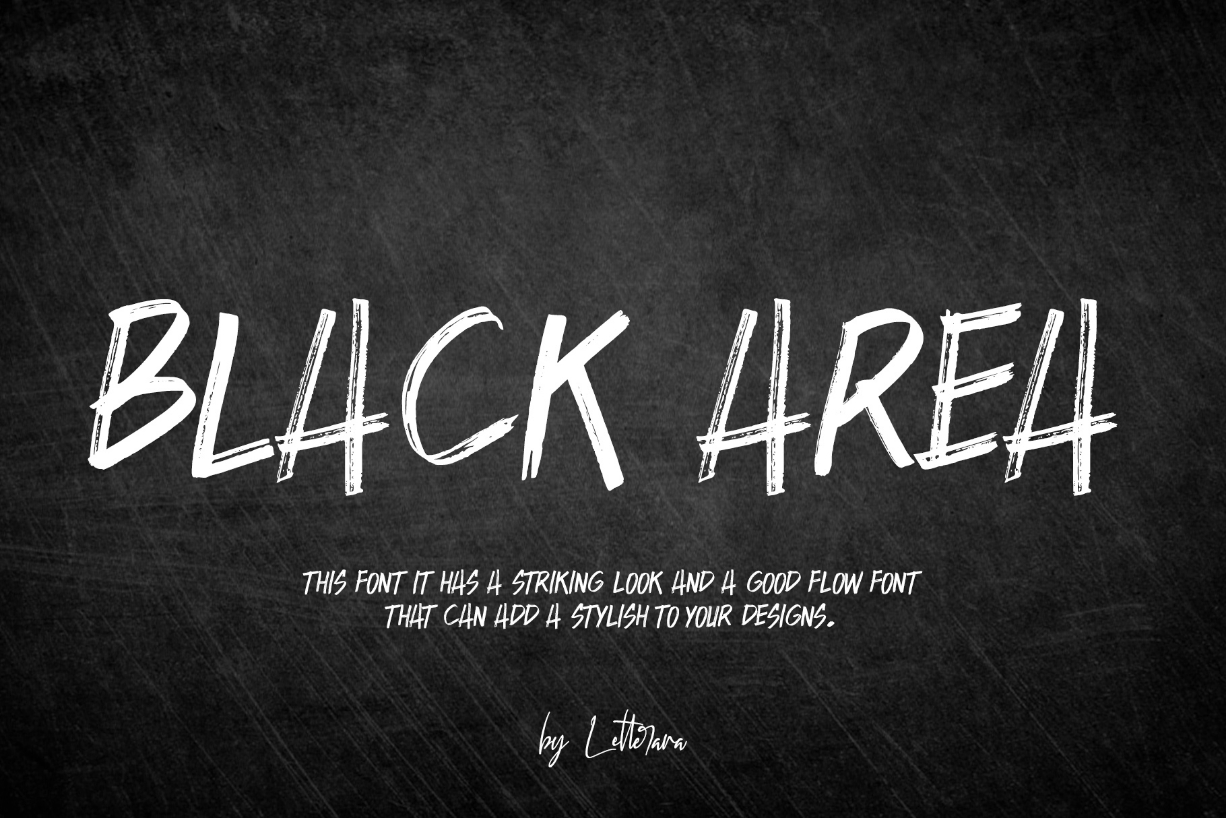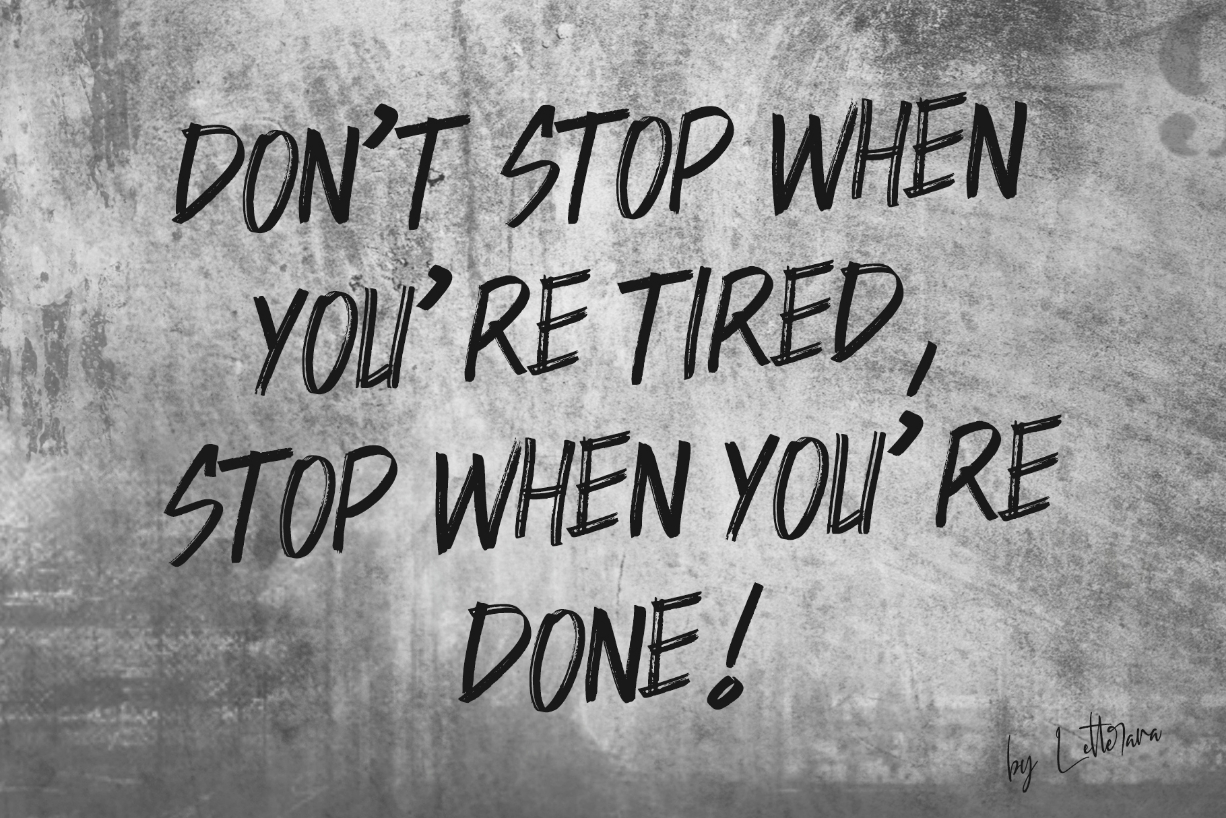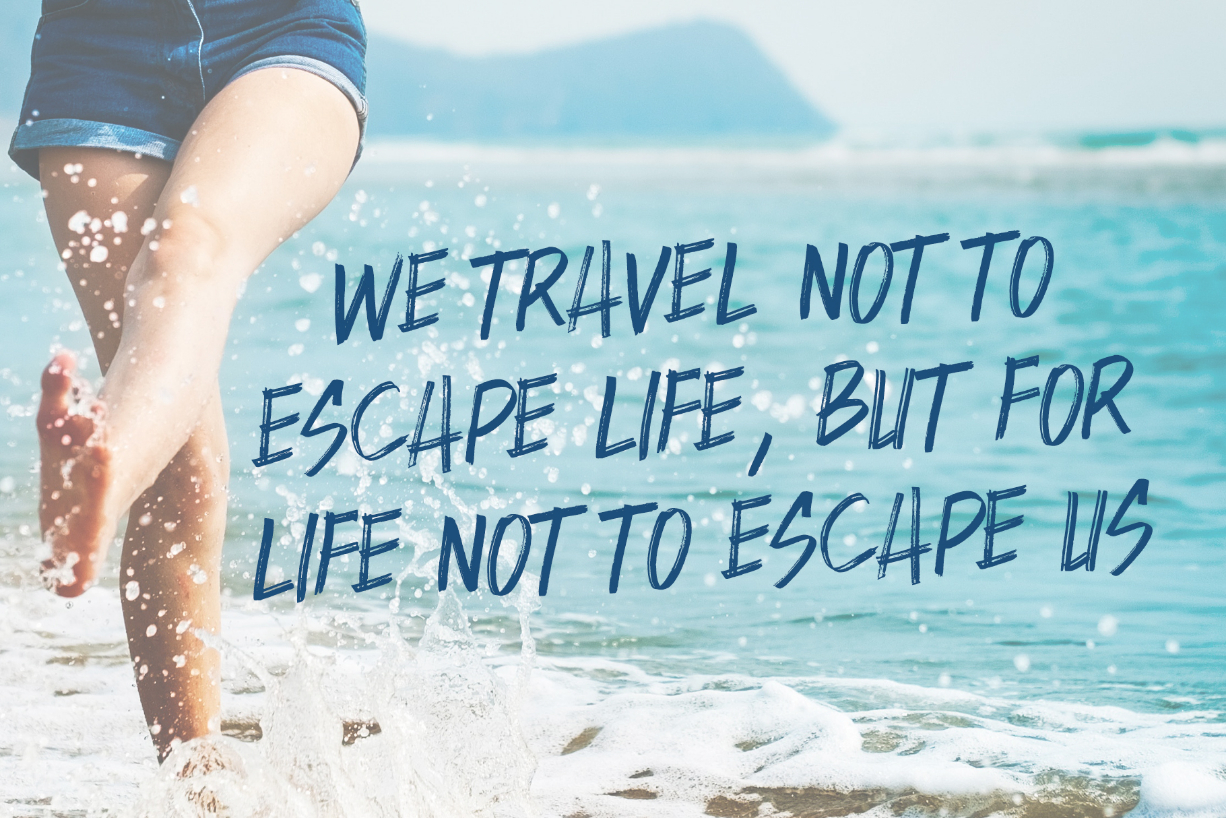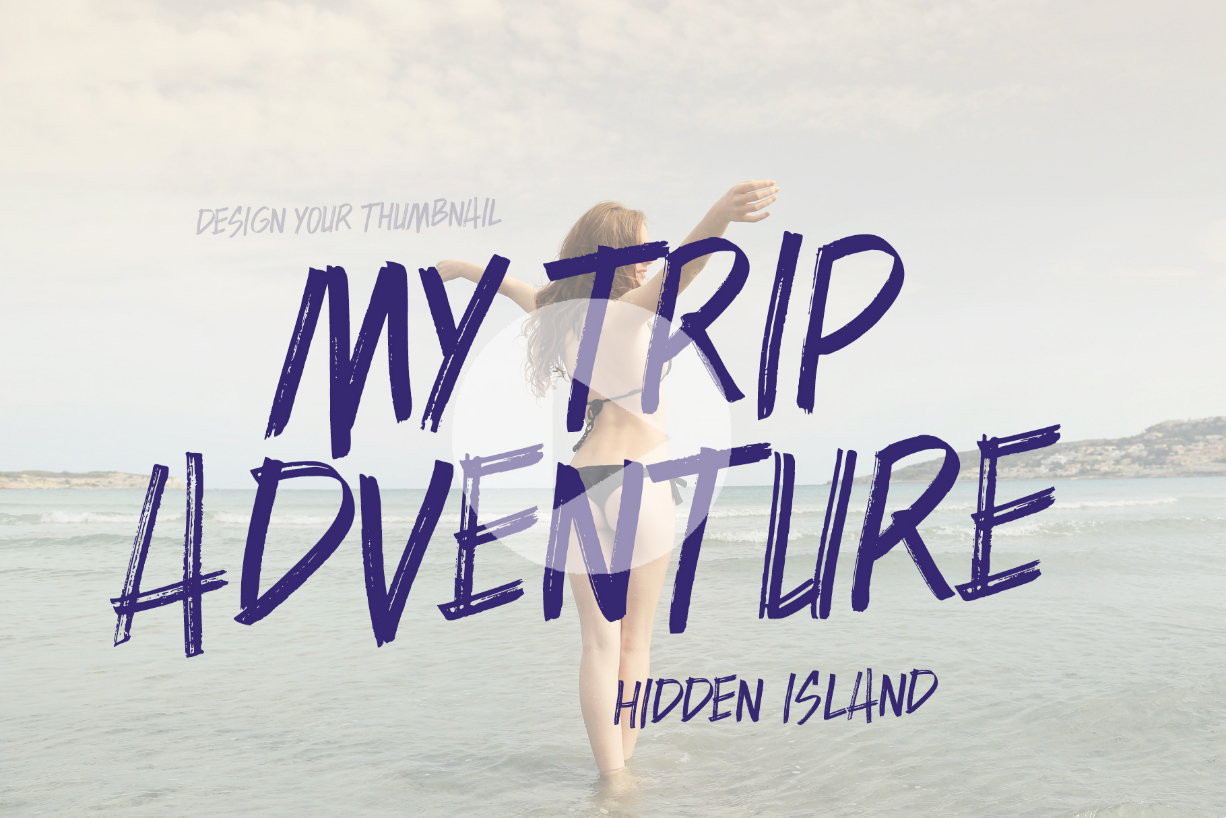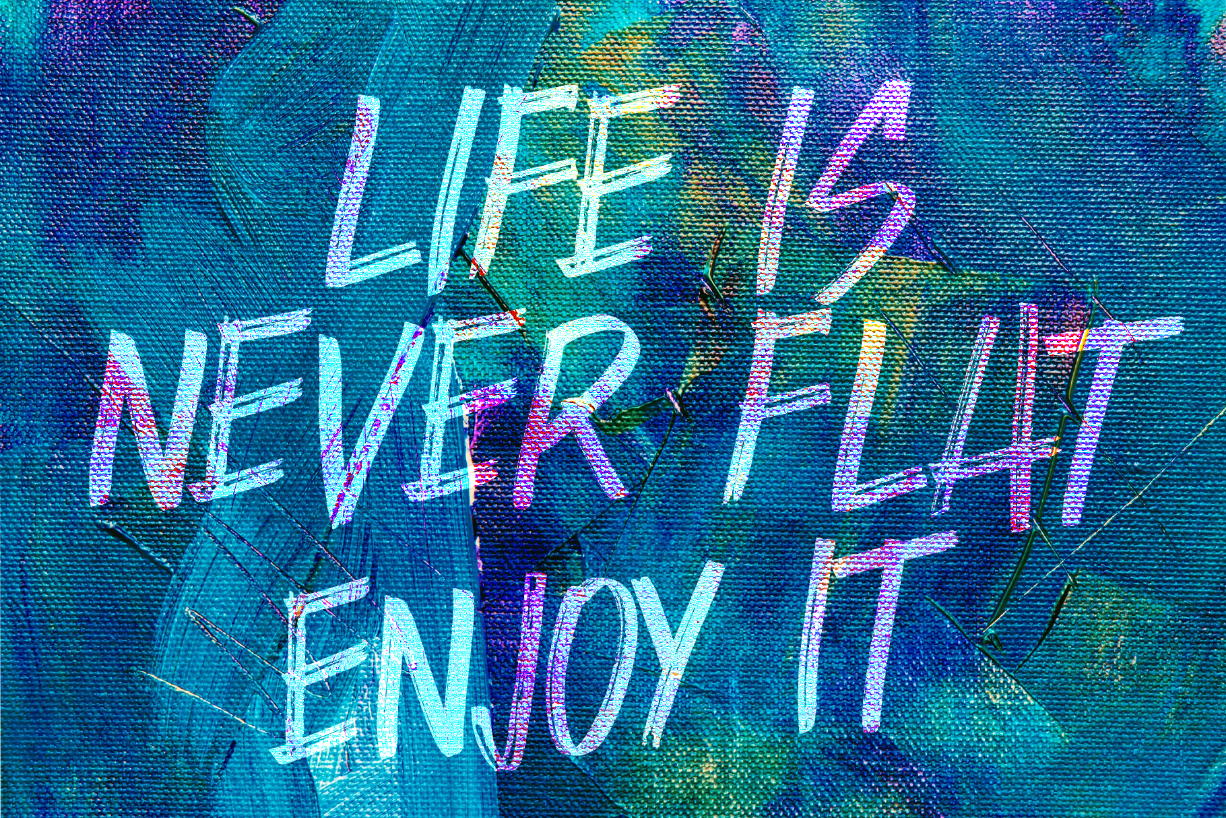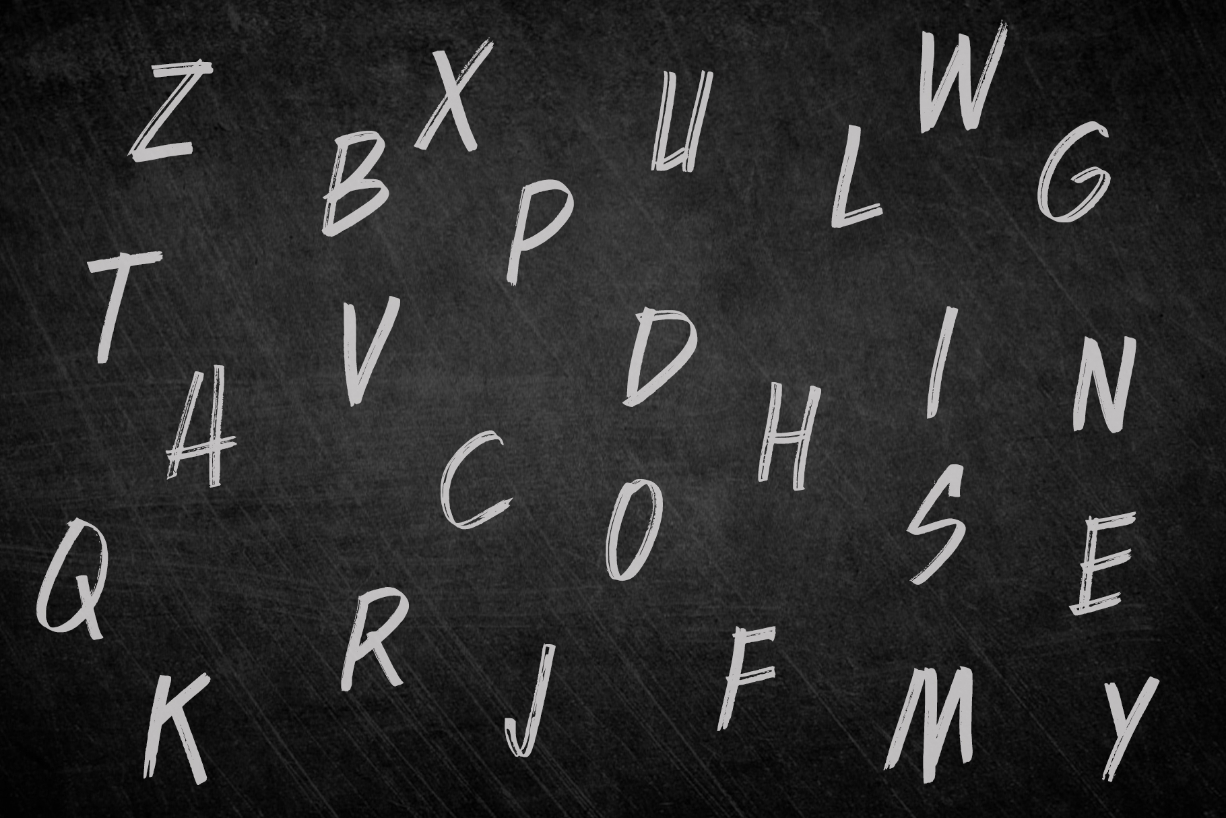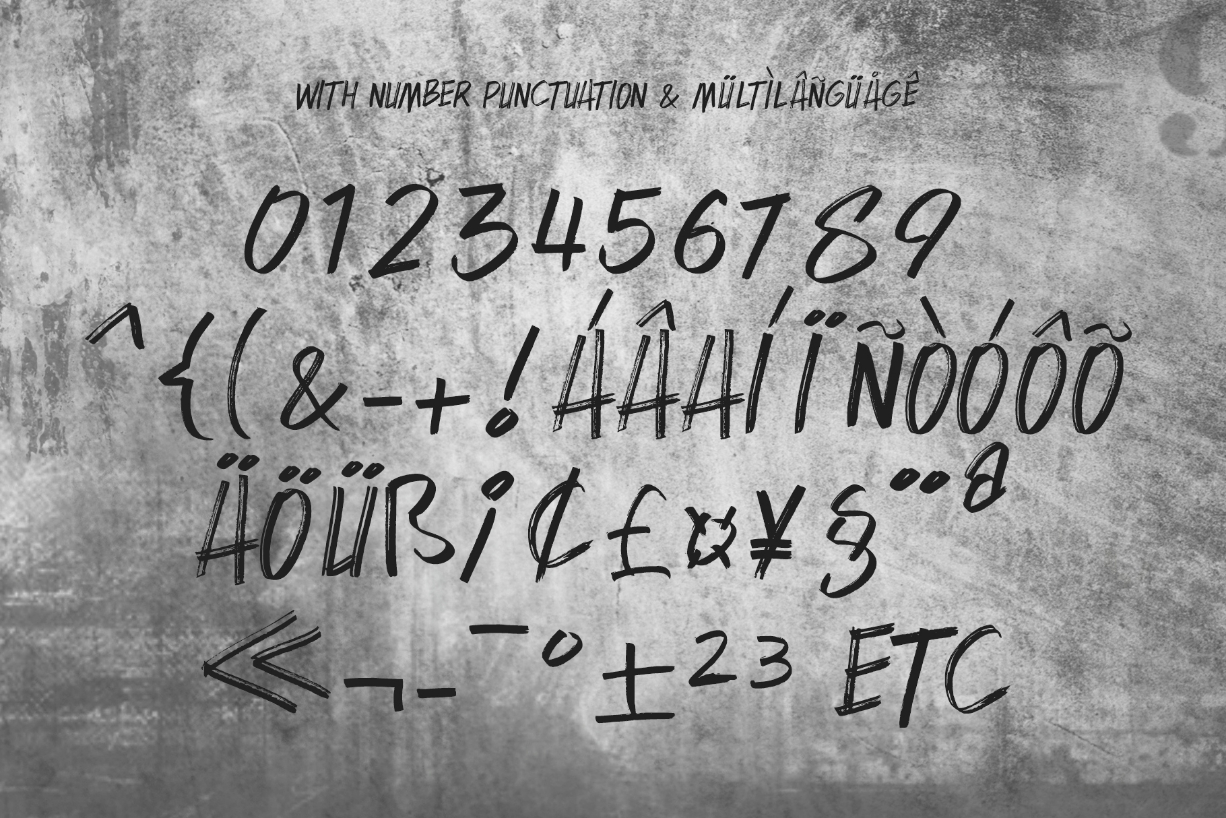
HomeBlackletter FontsBlack Area Font Blackletter Fonts Black Area Font FacebookXPinterestWhatsApp Black Area Font Poster 2 Black Area Font Poster 3 Black Area Font Poster 4 Black Area Font Poster 5 Black Area Font Poster 6 Black Area Font Poster 7 Black Area Font Poster 8 Black Area Font Poster 9 About Black Area Font Black Area is a strong brush font with a unique style. Get inspired by its authentic vibe. DOWNLOAD NOW People also explored Hedgehog Hans Romano Font Harmony Font Rohtwo Font Pillowway Font Arttemay – Handwritten Font Babydoll Font Alire Font Barna Font 263 0 TagsBlack Area Font Previous articleThe Ice Cream FontNext articleEast Coast Wild Style Font LEAVE A REPLY Cancel reply Comment: Please enter your comment! Name:* Please enter your name here Email:* You have entered an incorrect email address! Please enter your email address here Website: Save my name, email, and website in this browser for the next time I comment. Personal Use Free Remember Personal Use Free Read more about this font New Normal Personal Use Free Read more about this font Limejuice Personal Use Free Read more about this font Droid Personal Use Free Read more about this font BLOG Top 7 Google Fonts Alternatives for Faster and Privacy-Friendly Web Design (2025) Top 7 Google Fonts Alternatives for Faster and Privacy-Friendly Web Design (2025) When it comes to web typography, Google Fonts has long been the go-to... Top 10 Handwritten Fonts That Elevate Your Designs How to Install and Use Fonts on Windows, macOS, and Web Projects Transform Your Website: Elevate Your Typography with 7 Best Web Font Generators